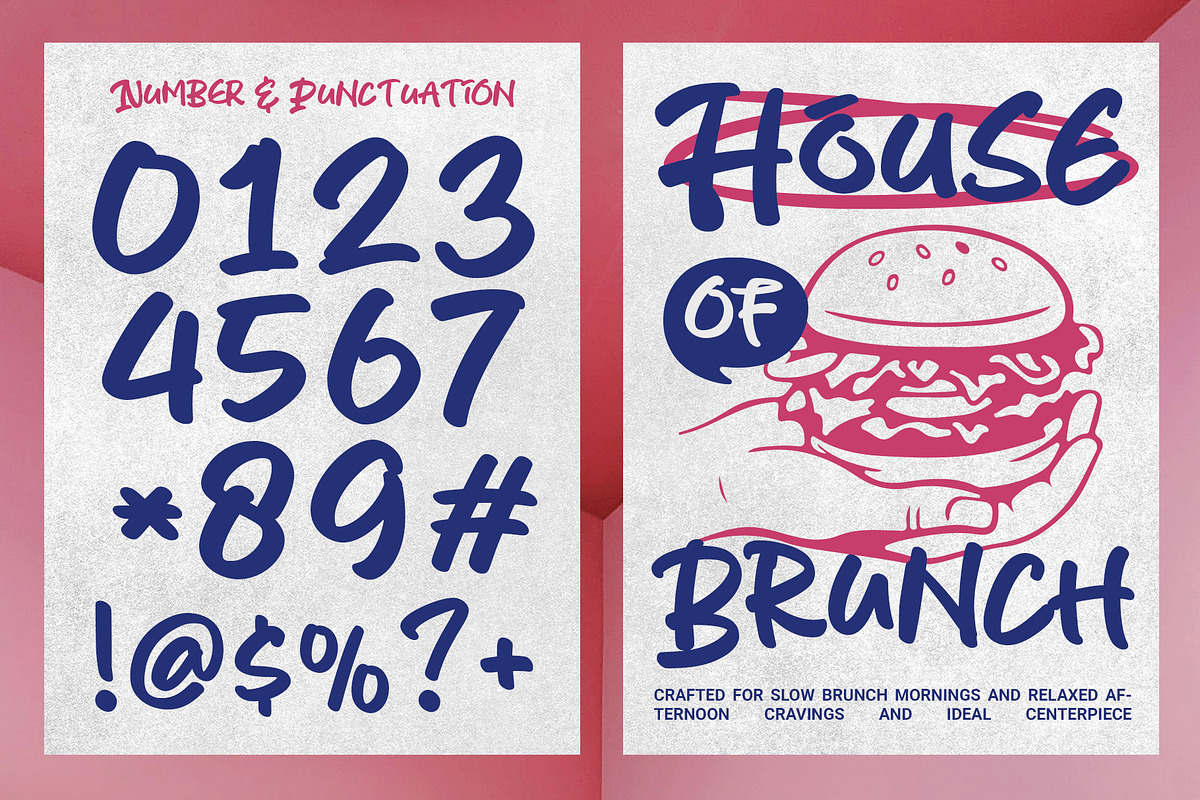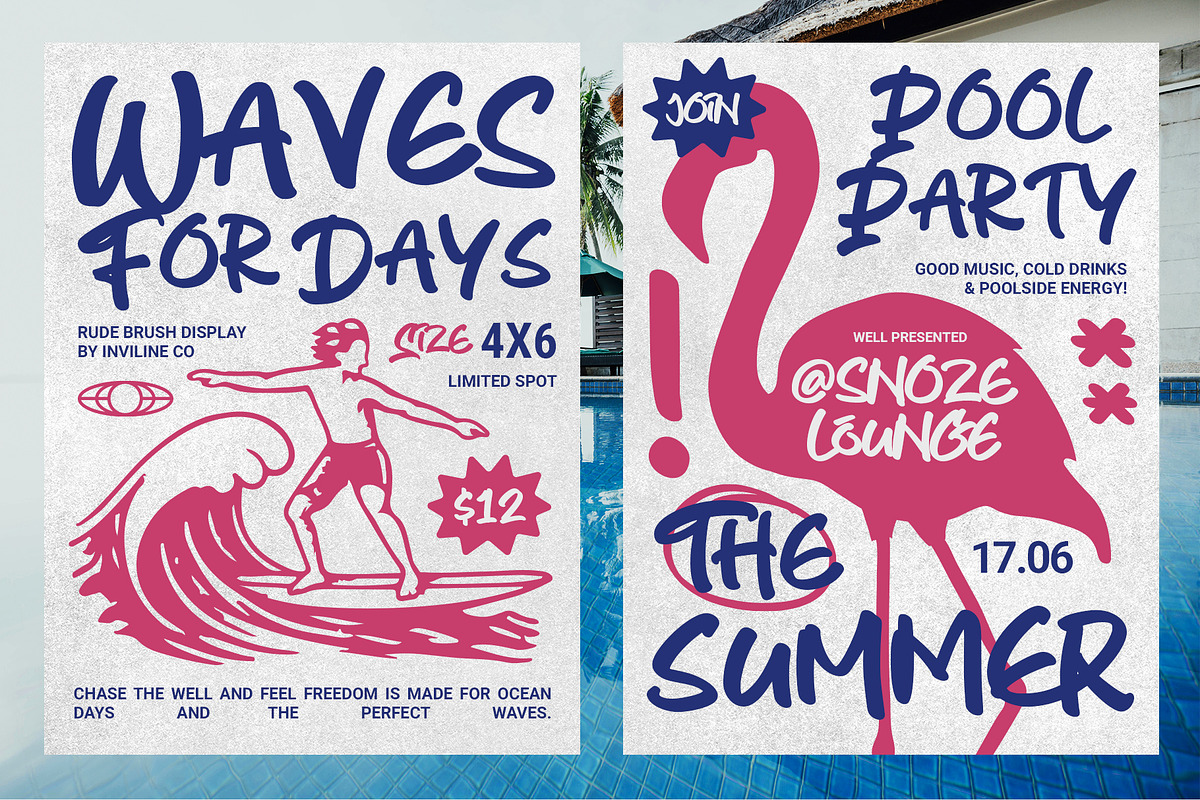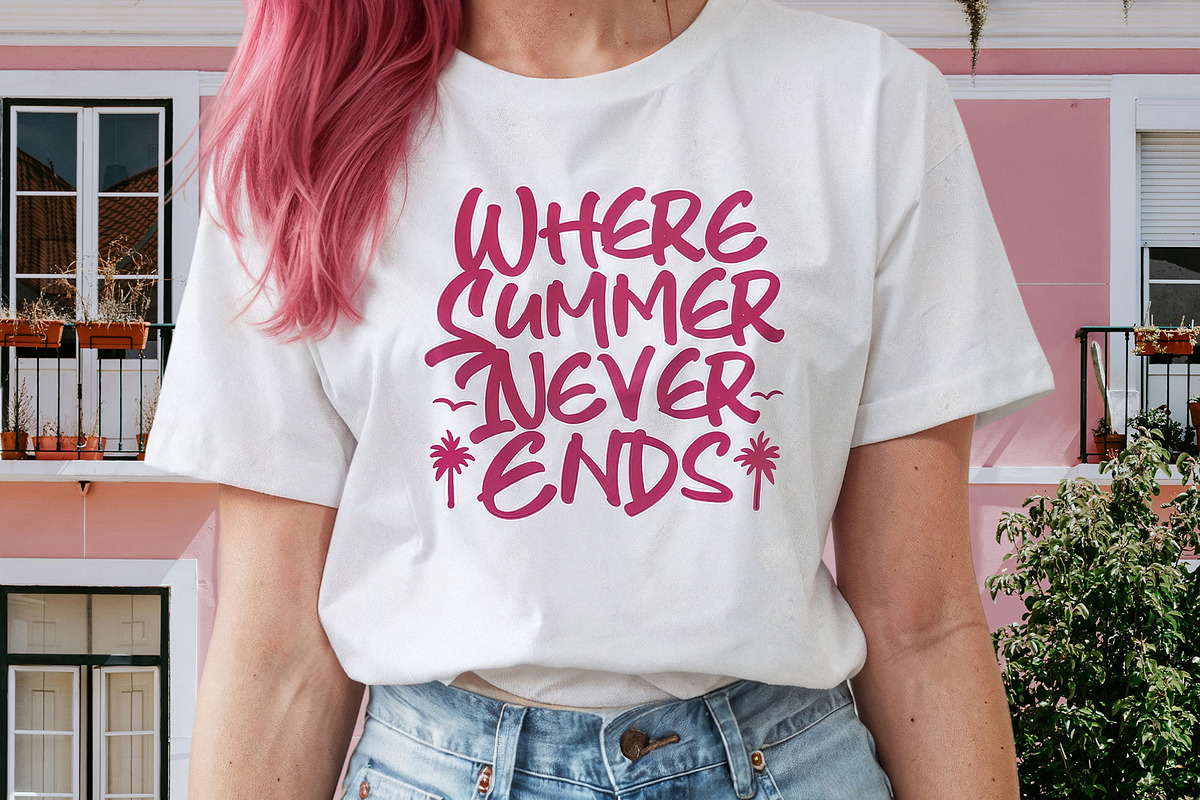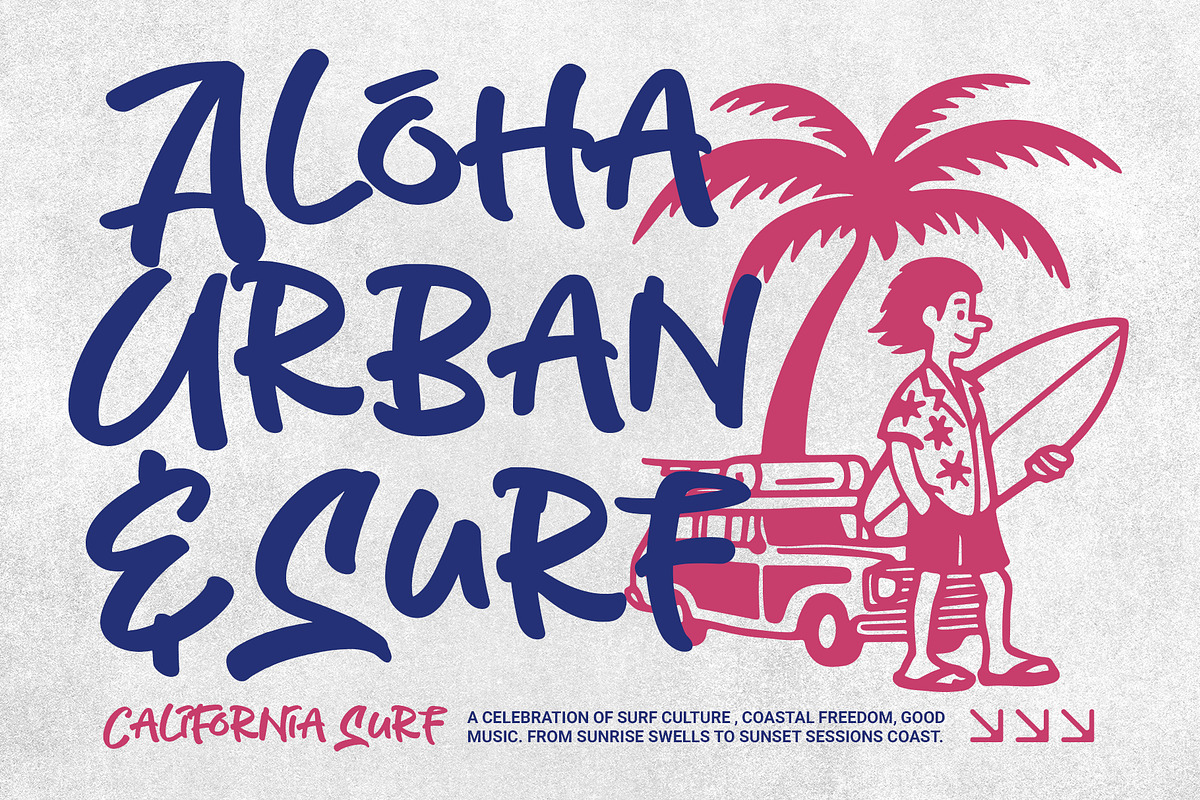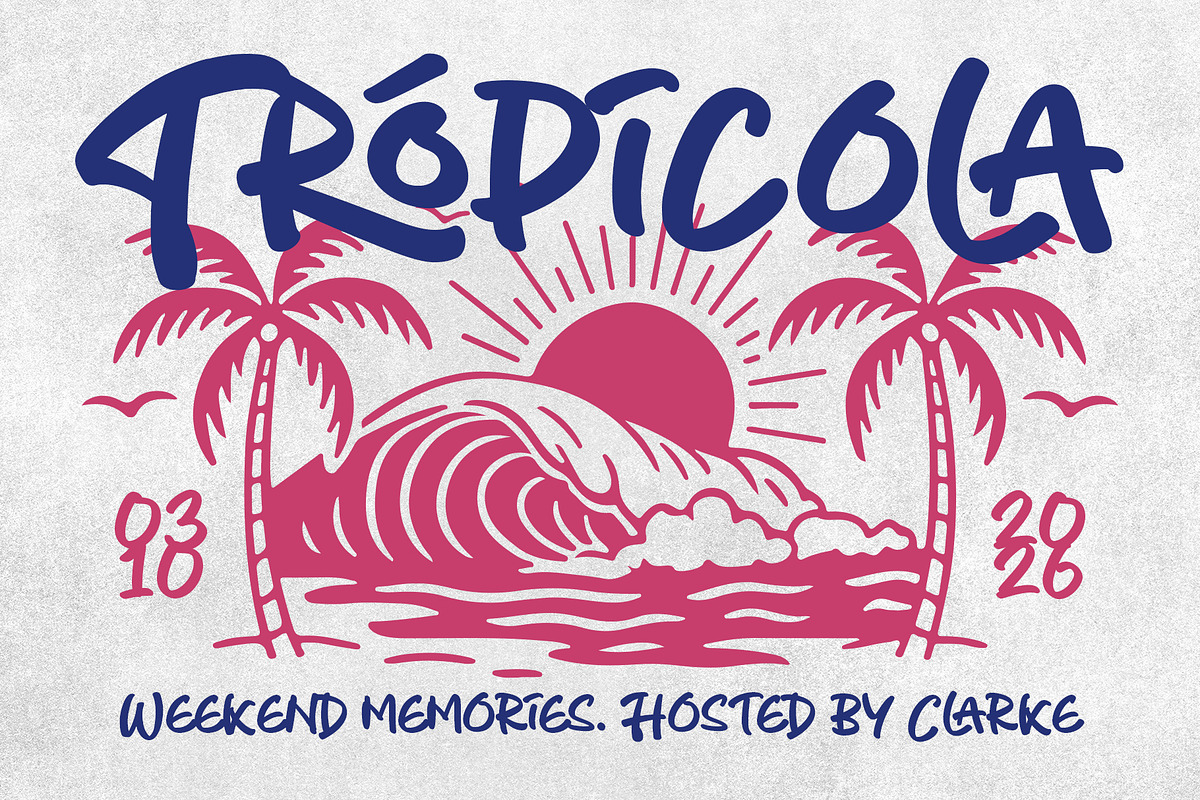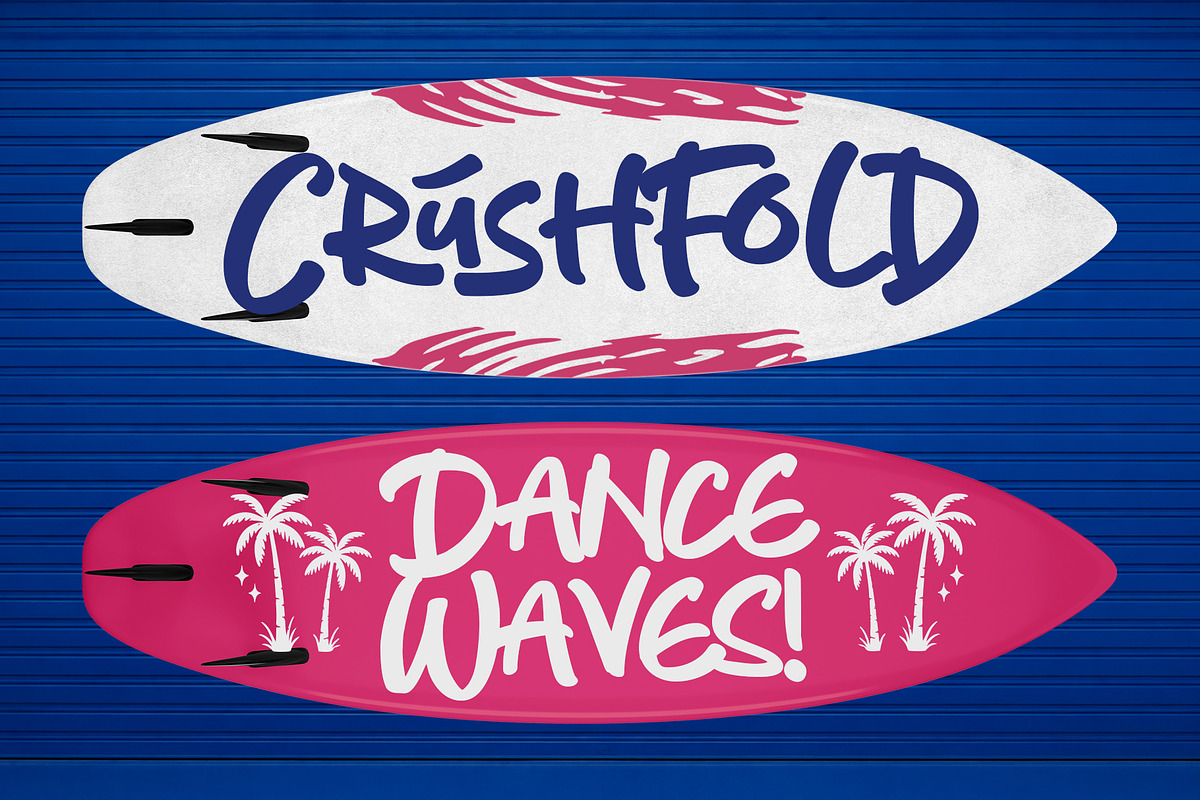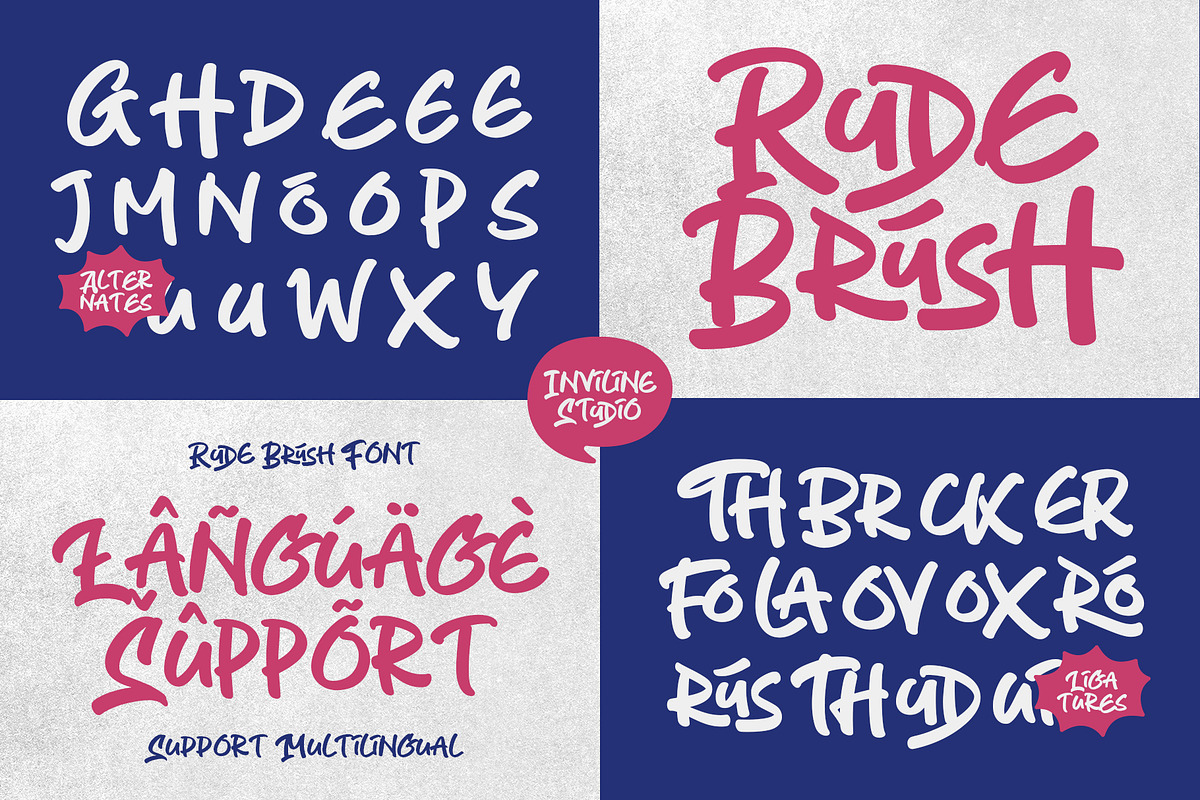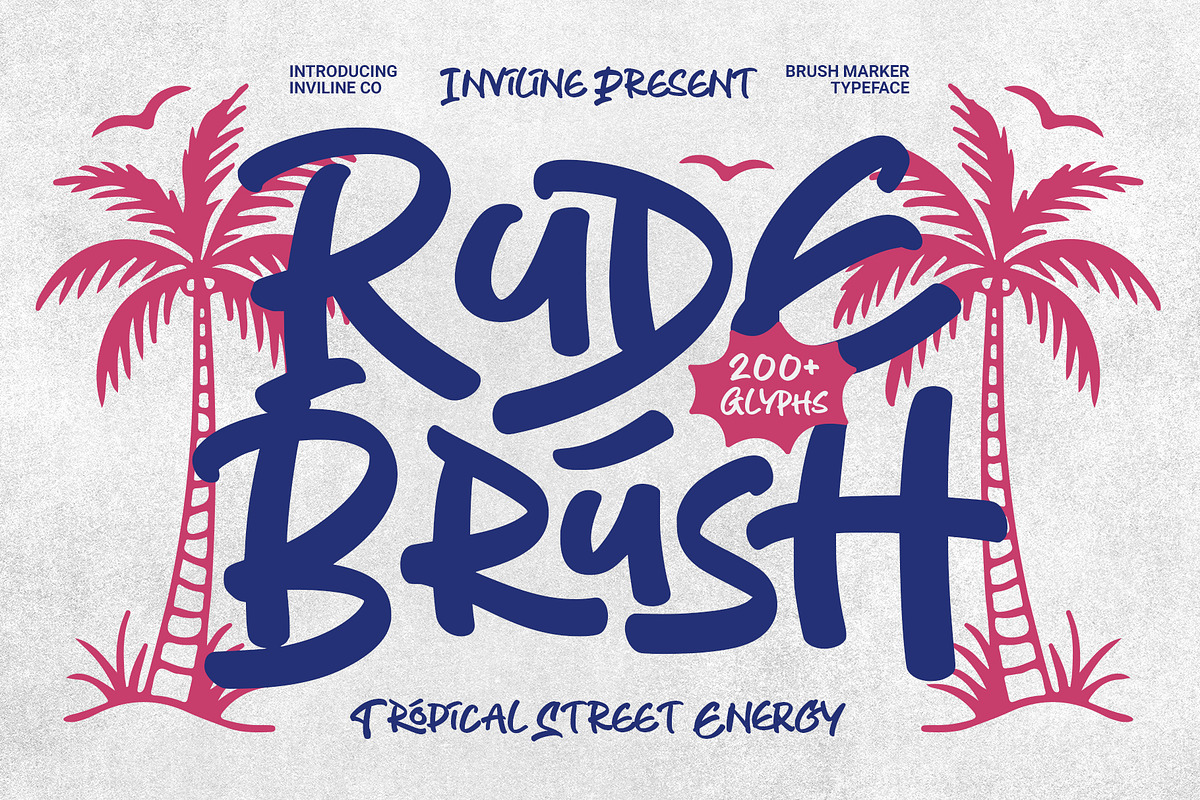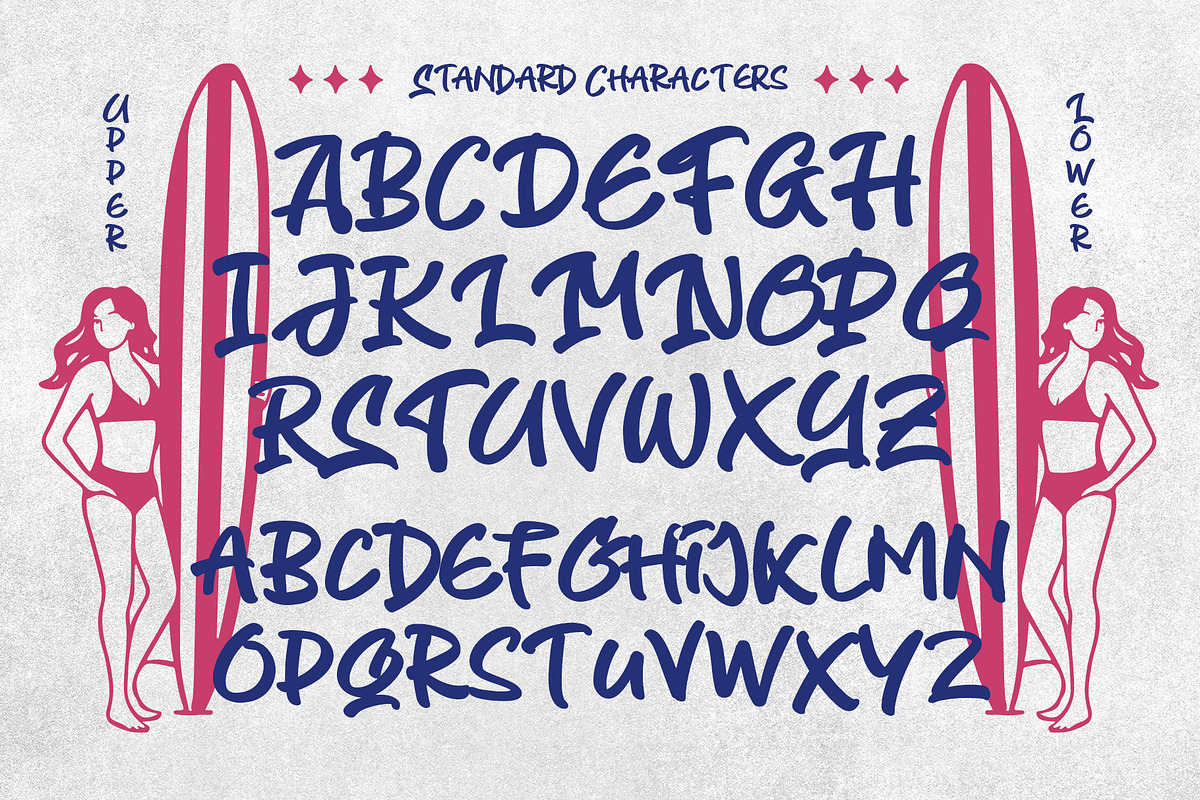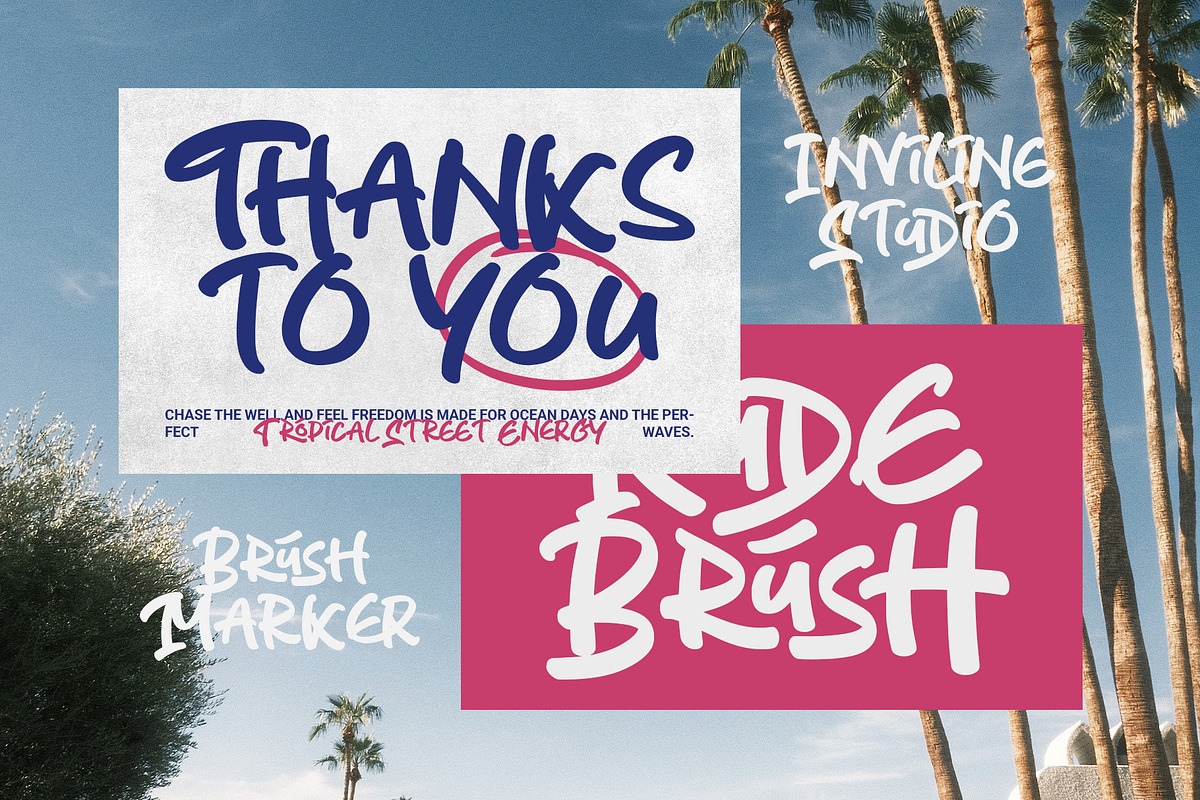
Rude Brush - Tropical Street Energy
Rude Brush: Where Chaos Speaks Louder Than Rules.
Unleash the heat of the streets with Rude Brush, a high-octane display typeface designed for brands that refuse to blend in. Blending the gritty texture of street graffiti with the free-flowing energy of tropical waves, this font captures a "Ride the Urban Wave" aesthetic perfectly.
Every stroke is crafted to feel manual and authentic, making it ideal for skateboarding apparel, surf-shop branding, music festival posters, and modern digital content that needs a rebellious edge.
Distinctive Character Set: Full Uppercase and Lowercase sets with unique personalities.
Ligatures: Custom pairings to create a natural, hand-painted flow.
Multilingual Support: Ready for global projects with a wide range of accented characters.
From T-shirt designs to social media headlines, Rude Brush delivers a bold, wild, and unapologetic look to your creative arsenal.